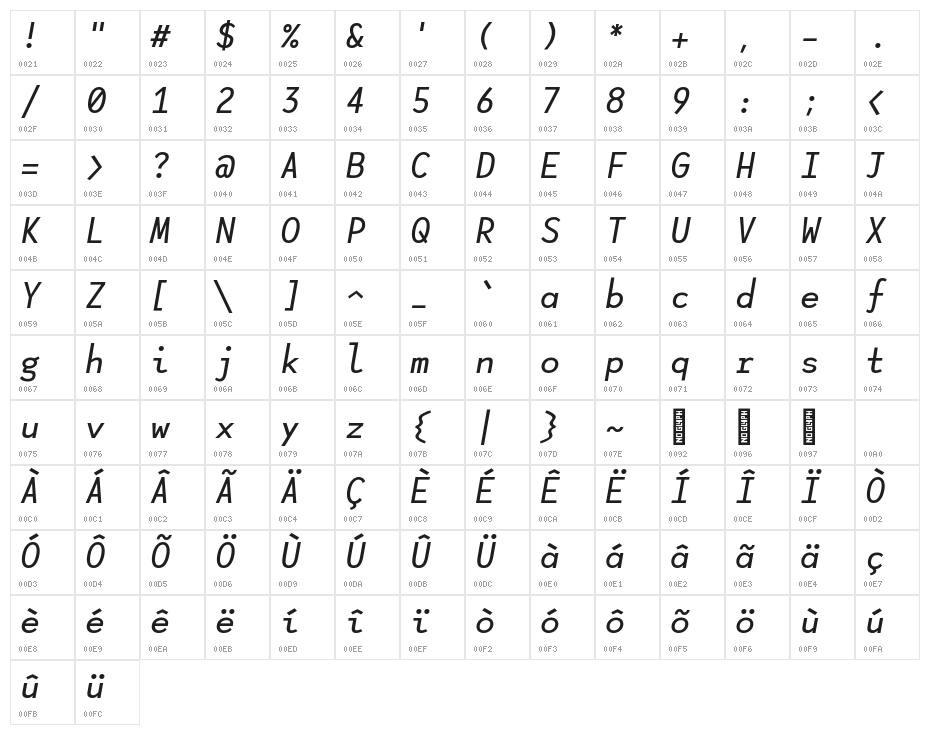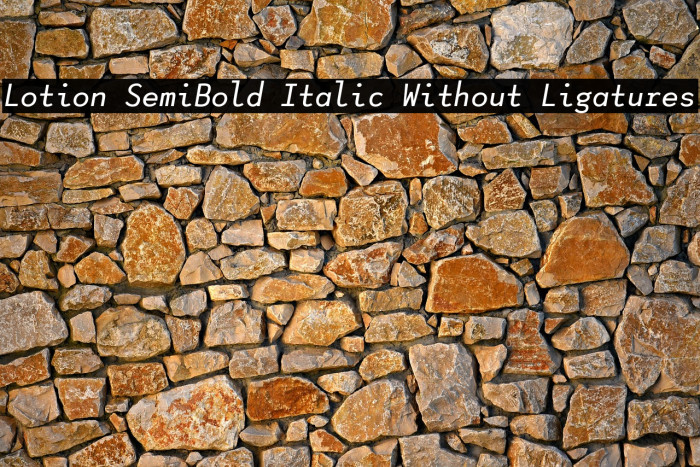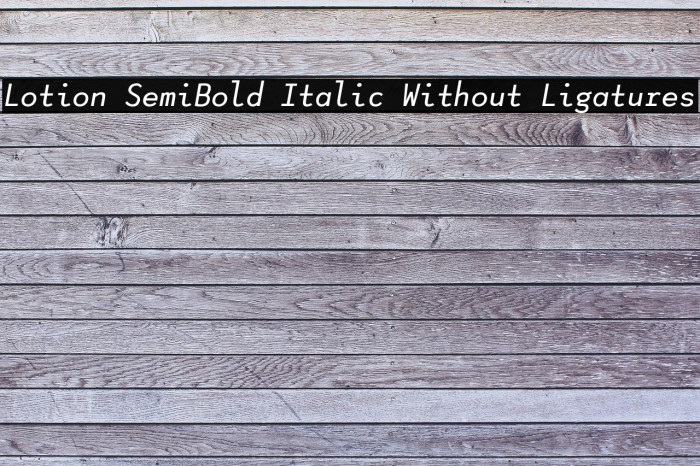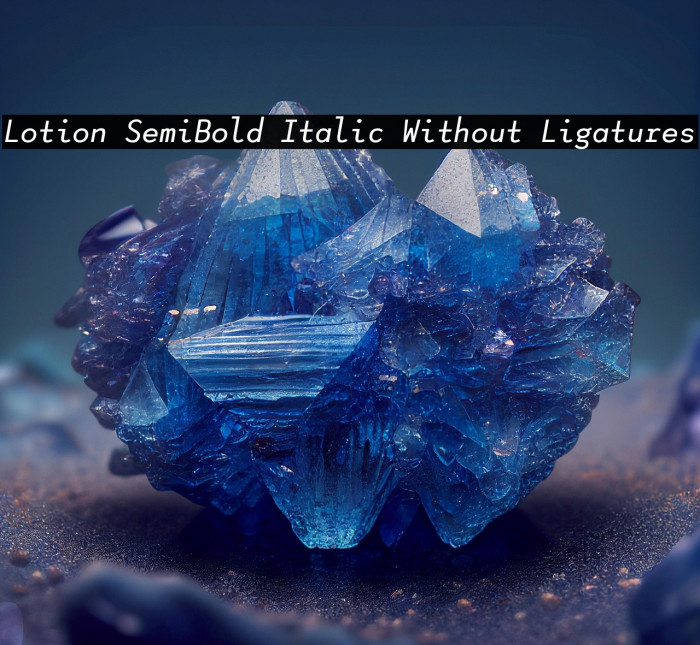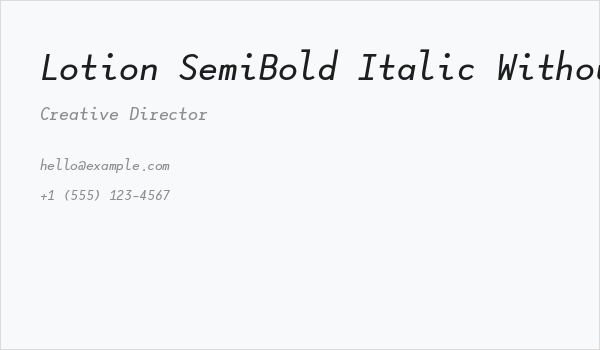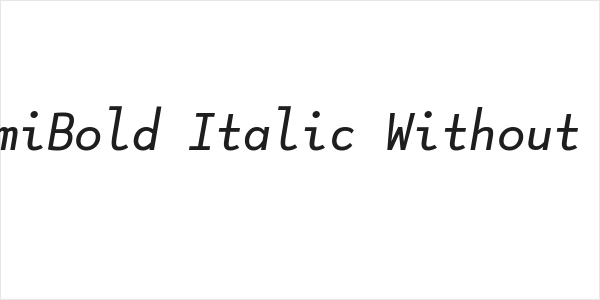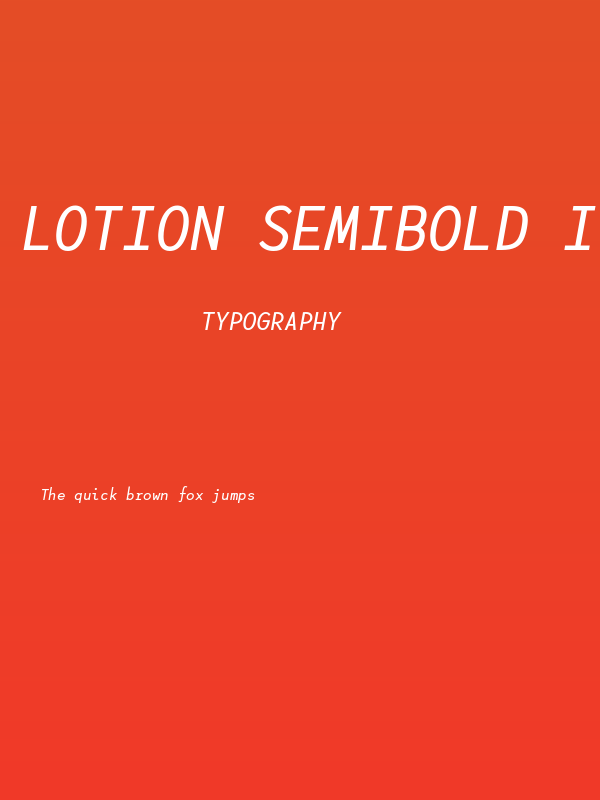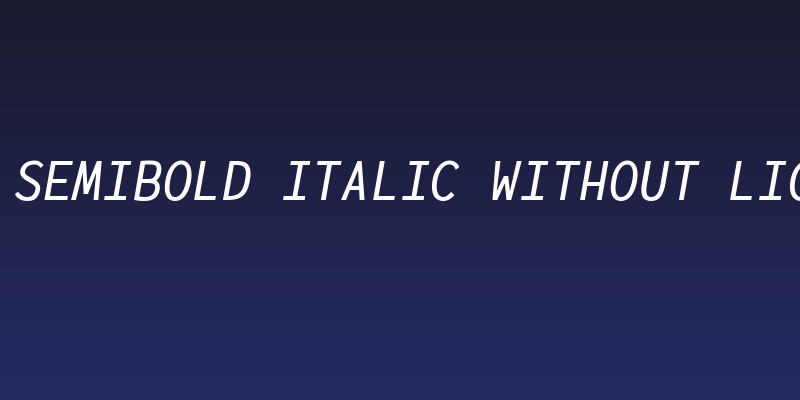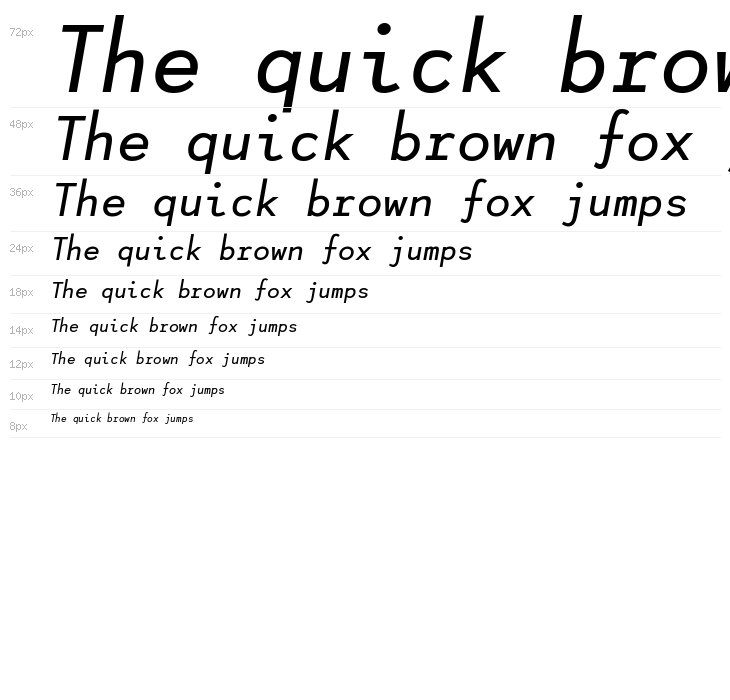
Lotion SemiBold Italic Without Ligatures Font
Lotion SemiBold Italic Without Ligatures Description
This font features a semi-bold weight with a distinct italic style, characterized by its slanted and smooth letterforms. The design is clean and modern, with a slight tilt that adds a dynamic feel to the text. The characters are well-defined, with consistent stroke widths that provide a balanced appearance. The lack of ligatures gives it a straightforward and uncluttered look, making it versatile for various applications. The numerals and special characters maintain the same stylistic approach, ensuring uniformity across different text elements.
| Proposed Projects | Ideal for branding projects, modern web design, advertising, and editorial layouts where a contemporary and dynamic feel is desired. |